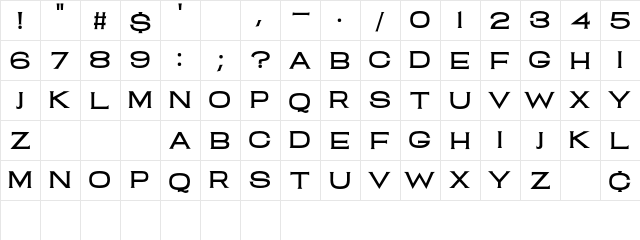
Clam Shack Regular Font Preview
Clam Shack Regular
Design Context for Clam Shack Typeface
Clam Shack takes a measured approach to typography — its balanced proportions and neutral character make it a reliable workhorse for both digital and print work.
Pro Tip: Use Clam Shack in both headline and body roles to test its range before committing to a single application.